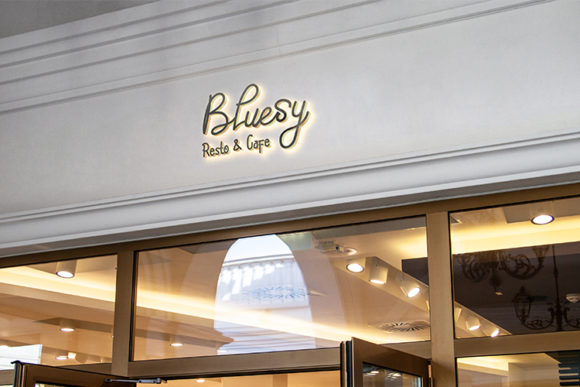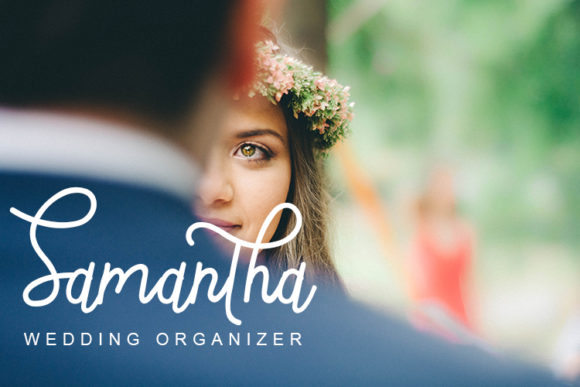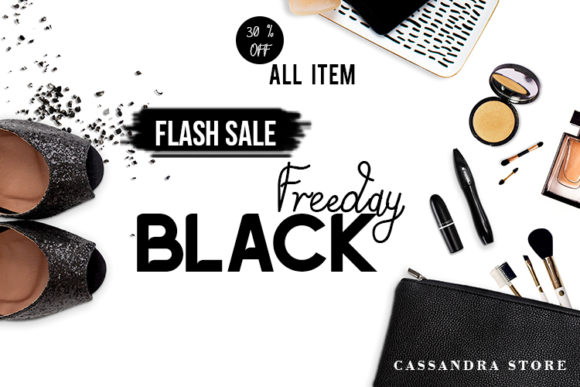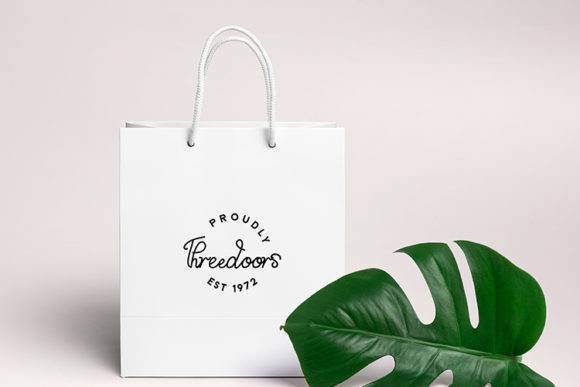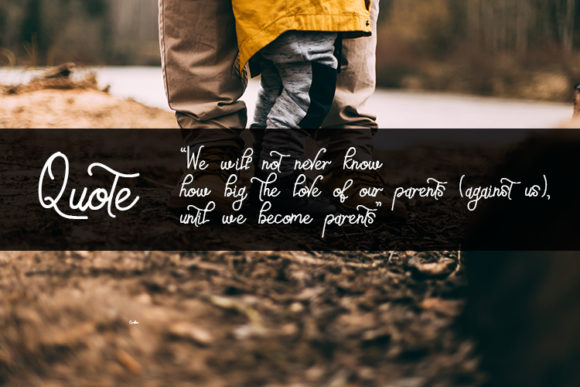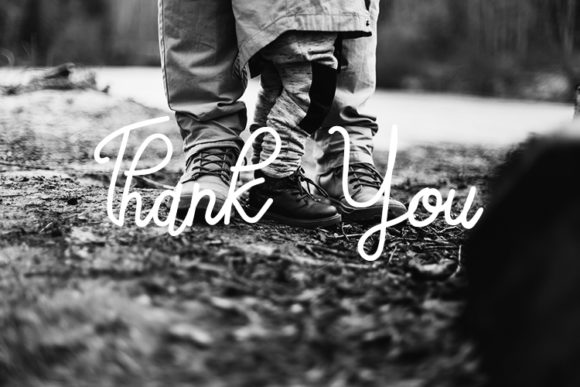
Southeast Avicenna Duo Font
About Southeast Avicenna Duo Font
The Southeast Avicenna is a wonderful font duo. It comes in two styles which gives you the opportunity to create multiple unique designs, with just this one download.
This duo is perfect for signatures, business cards, social media, product brands and much more!